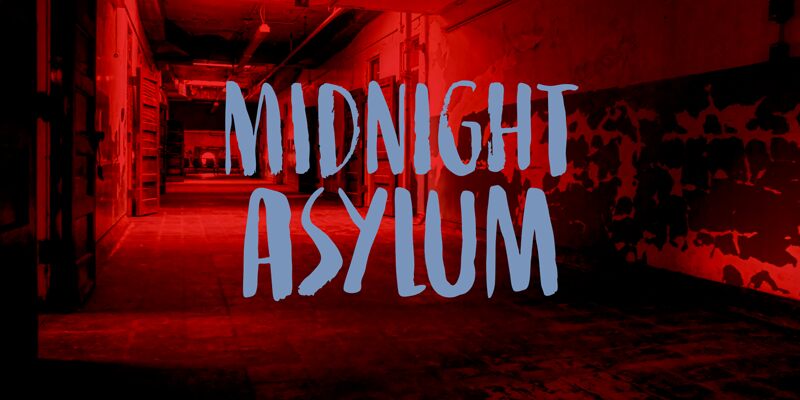
Midnight Asylum DEMO Regular
Midnight Asylum, the spine-chilling brush font designed by D K, is here to add an eerie touch to your designs. The bold and condensed typeface will give your projects a daring and intimidating edge. Perfect for horror movie posters, Halloween invitations, and spooky book covers, Midnight Asylum's scary style will make sure your message doesn't go unnoticed. Let this bone-chilling font take your designs to the next level by adding a touch of darkness and horror. Get ready to send shivers down everyone's spines with Midnight Asylum!